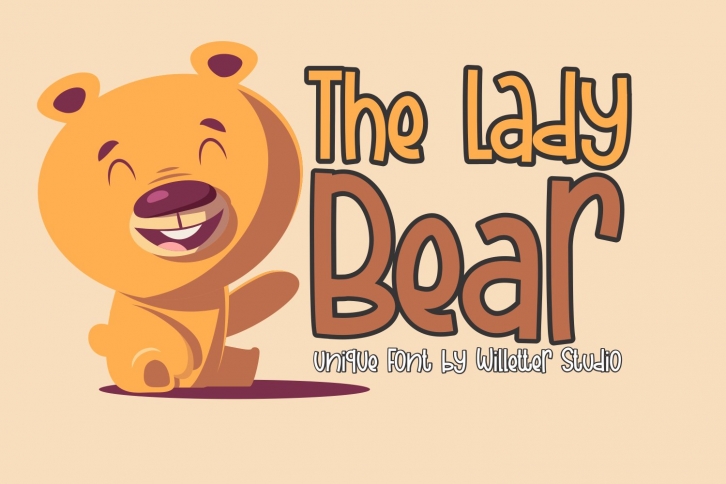
The Lady Bear is a trendy and unique font with an authentic style. It was designed by Willetter Studio and it's a great choice for creative people who need such a font. It was released on May 10, 2020 and the file size is 19.51 MB. The Lady Bear will add an organic vibe to any design idea!